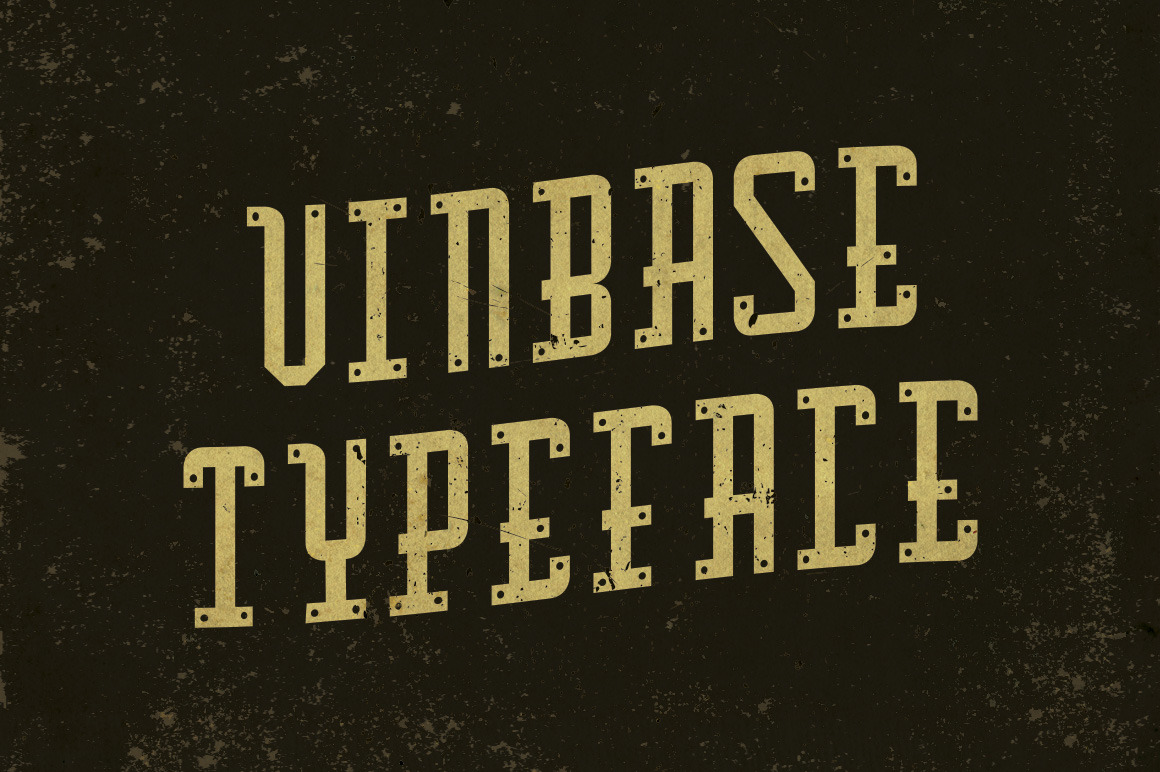
Vinbase Typeface
Inspired from baseball uniforms and pennants. Vinbase it's an uppercase solid font which you can use for you personal and commercial projects.